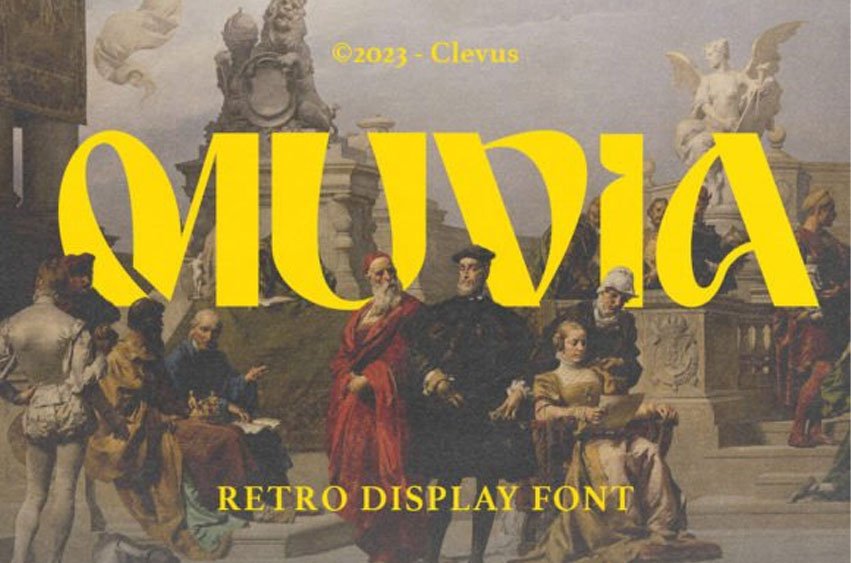
Muvia Font offers a captivating reverse contrast retro display font, exuding a nostalgic throwback perfect for vintage-themed designs. With its distinctive features including unique glyphs, weights, and styles. Muvia stands out among retro fonts, making it a versatile choice for various creative projects. Muvia super funky vibe makes it an ideal choice for headline fonts, amplifying the visual impact of designs. From posters to merchandise or brand identities seeking a touch of vintage flair, Muvia adds a punch of retro charisma.